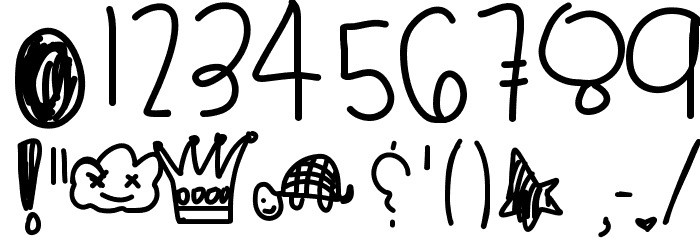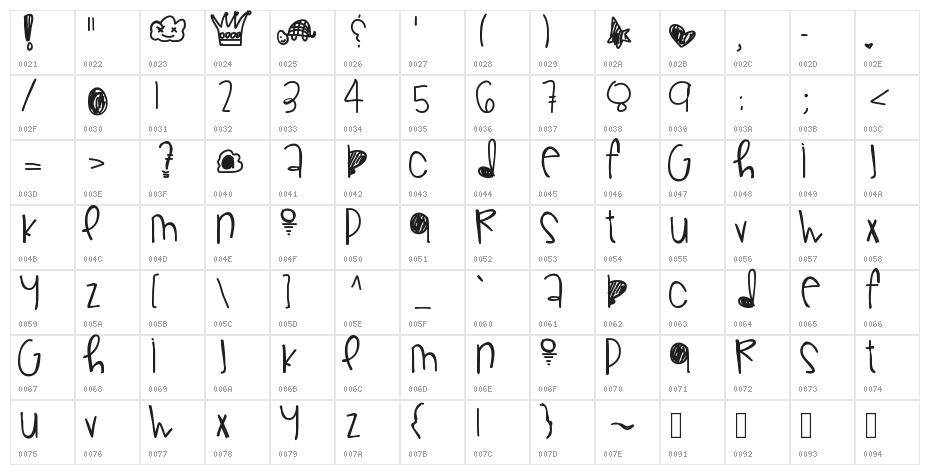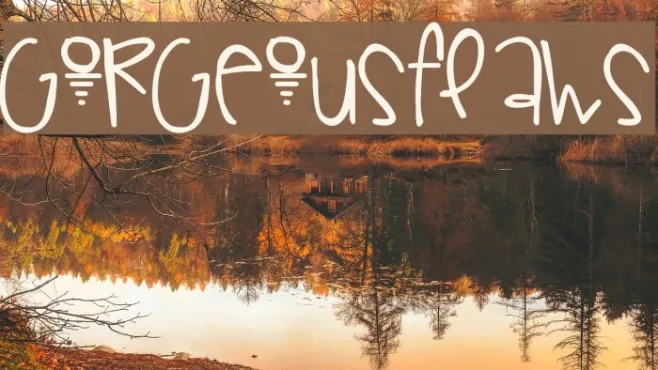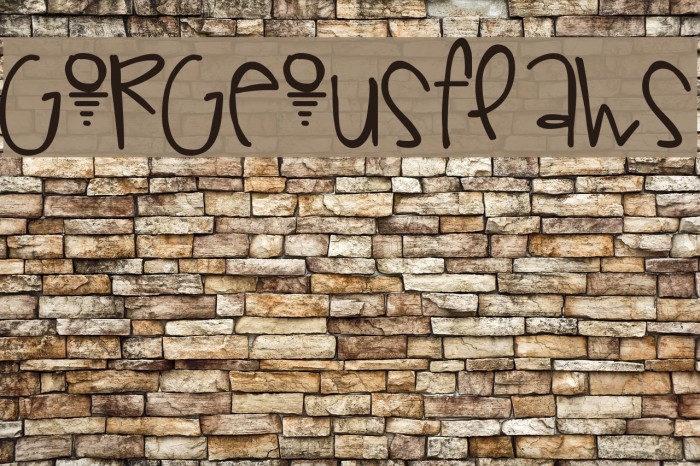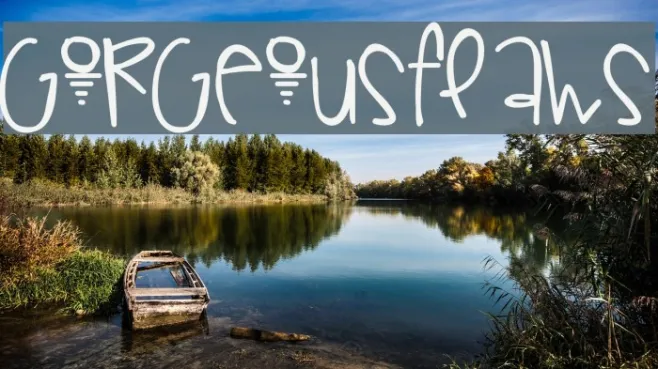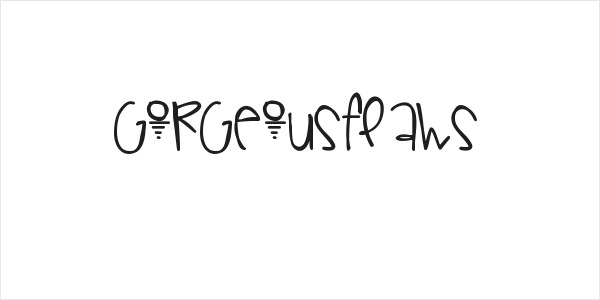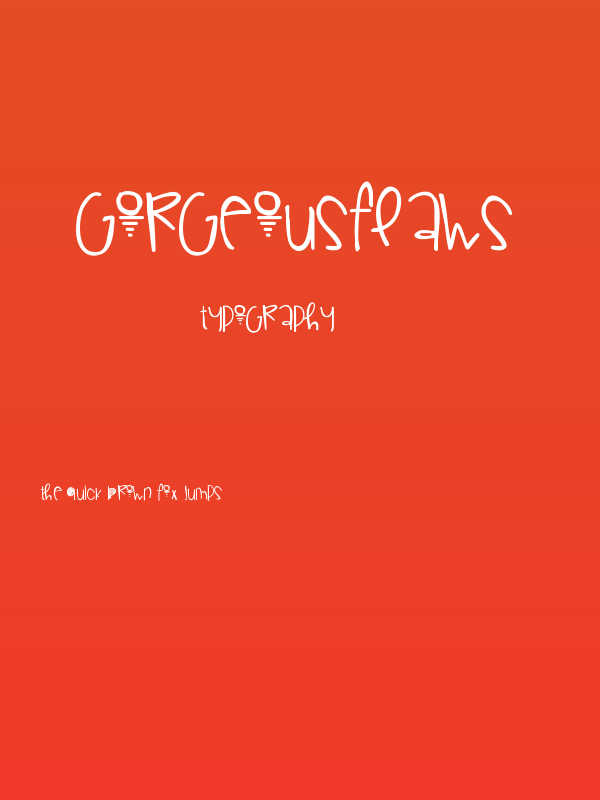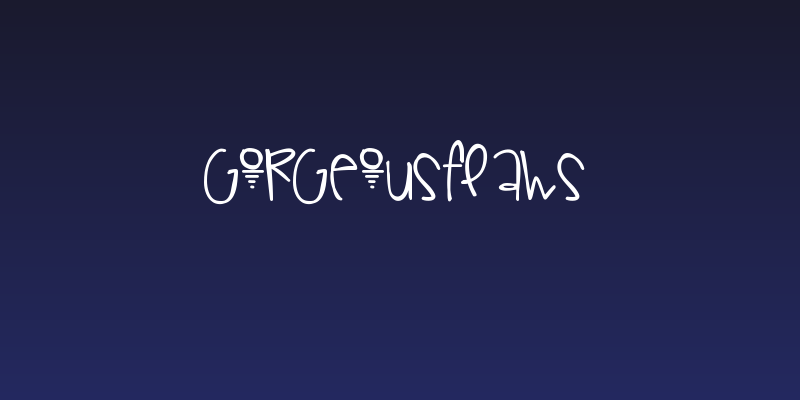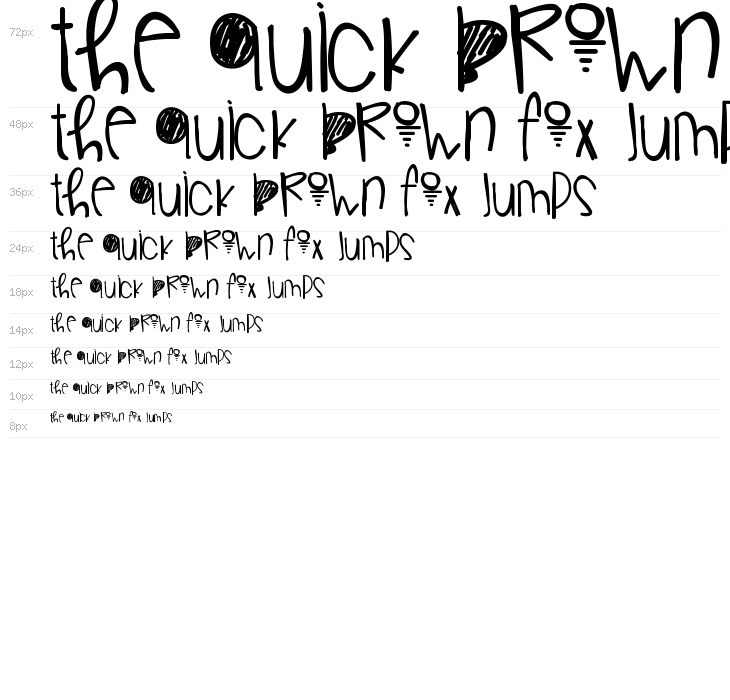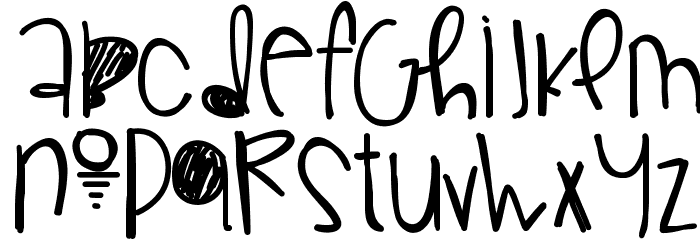
GorgeousFlaws Font
GorgeousFlaws Description
This playful and whimsical font features a hand-drawn style with irregular, quirky shapes that give it a unique and artistic flair. The letters are bold and slightly uneven, adding to the casual and informal feel. The uppercase and lowercase letters maintain a consistent style, with rounded edges and varying line thicknesses that create a lively and dynamic appearance. The numbers and special characters follow the same playful design, making them perfect for creative projects. The font's overall look is both charming and approachable, ideal for adding a personal touch to any design.
| Proposed Projects | Ideal for children's books, greeting cards, playful branding, and creative posters. |